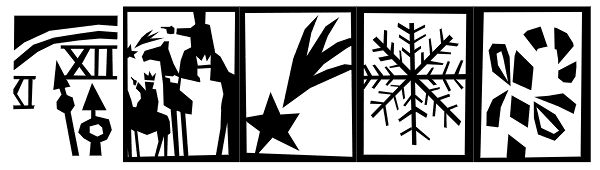
Xbats
Make your instant X-mas and Winter Holiday Greeting cards with the HF Xbats dingbats. 26 regular (capitals, A-Z) and 26 inverted (lowercase, a-z) images with the upcoming Winter Holiday Season as a theme. 7 instant Holiday Messages (numerals, 1-5...